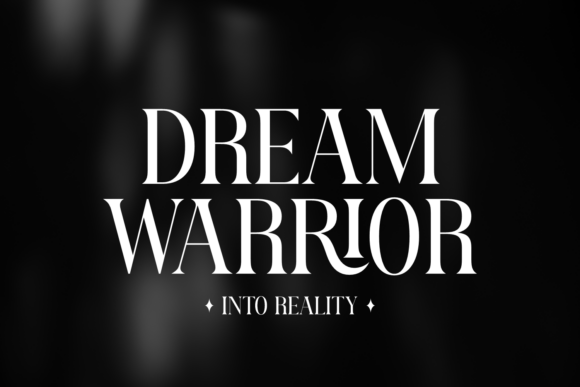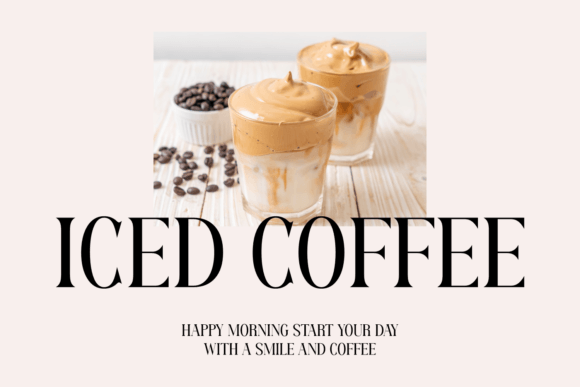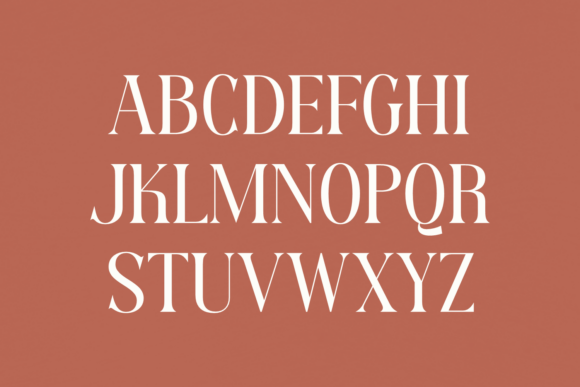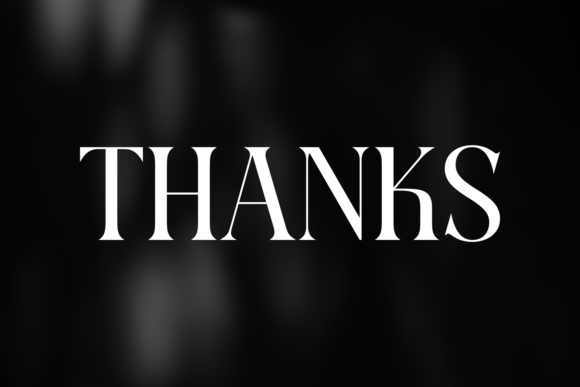
Brisde Font: Elevate Your Designs with Elegance and Sophistication
In the world of typography, a font can make or break a design. A well-crafted font can elevate a simple design into a masterpiece, while a poorly chosen one can detract from even the most intricate details. For designers and crafters seeking a typeface that exudes elegance and sophistication, look no further than Brisde Font. This modern and elegant serif font has been carefully crafted to combine classic style with a fresh look, making it the perfect addition to any design project.
The Characteristics of Brisde Font
Brisde Font is characterized by its smooth curves and sharp edges, which work in harmony to create a sophisticated feel. The serif details add a touch of classic elegance, while the modern twist ensures that the font remains fresh and relevant. This unique blend of old and new makes Brisde Font an excellent choice for designers seeking to create a distinctive look.
One of the standout features of Brisde Font is its versatility. Whether used in print or on screen, this font adapts seamlessly to different mediums and applications. For print designs, such as brochures, posters, and business cards, Brisde Font adds a touch of sophistication and elegance. On screen, it shines in website headers, digital ads, and social media graphics, ensuring that your message is conveyed with style and poise.
Perfect for Headings and Body Text
Brisde Font is designed to be used for both headings and body text, making it an excellent choice for a wide range of design projects. Its clear and legible design ensures that readers can easily navigate even the most complex information, while its elegant appearance adds a touch of refinement to any text. Whether you’re creating a website, a brochure, or a book, Brisde Font is an excellent choice.
Why Choose Brisde Font?
So why choose Brisde Font over other typefaces? Here are just a few compelling reasons:
- Elegance and sophistication: Brisde Font exudes elegance and sophistication, making it perfect for high-end designs.
- Versatility: Brisde Font adapts seamlessly to different mediums and applications.
- Legibility: Brisde Font is clear and legible, making it perfect for both headings and body text.
- Unique style: Brisde Font’s unique blend of classic and modern elements sets it apart from other typefaces.
Tips for Using Brisde Font
To get the most out of Brisde Font, here are a few tips to keep in mind:
- Experiment with font sizes: Brisde Font looks great in a range of font sizes, from large headings to smaller body text.
- Play with color: Brisde Font can be used in a range of colors, from deep blacks and grays to bright and bold hues.
- Mix and match: Brisde Font pairs well with a range of other typefaces, making it easy to create a unique and harmonious design.
In conclusion, Brisde Font is a modern and elegant serif font that is perfect for designers and crafters seeking to elevate their designs with elegance and sophistication. Its smooth curves and sharp edges create a sophisticated feel, making it perfect for both headings and body text. Whether used in print or on screen, Brisde Font adds a touch of refinement to any design. With its versatility, legibility, and unique style, Brisde Font is an excellent choice for any design project.